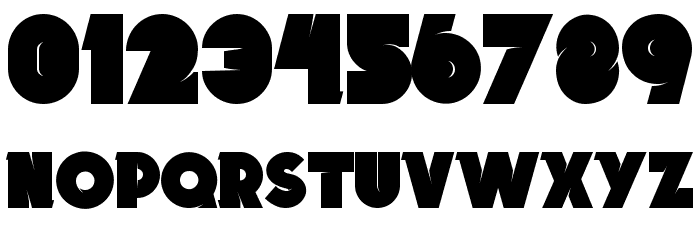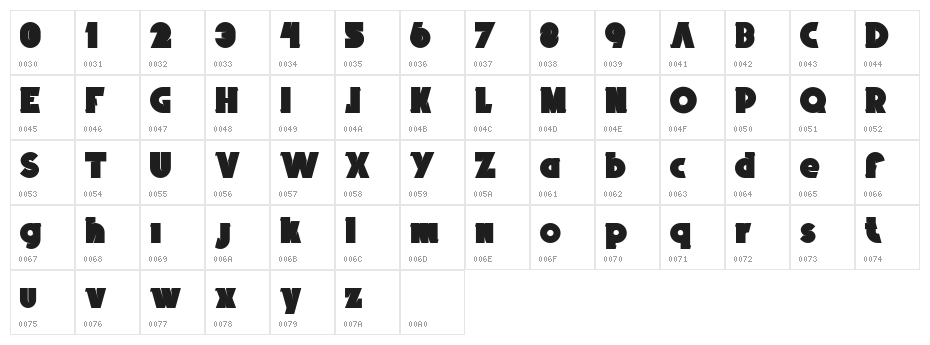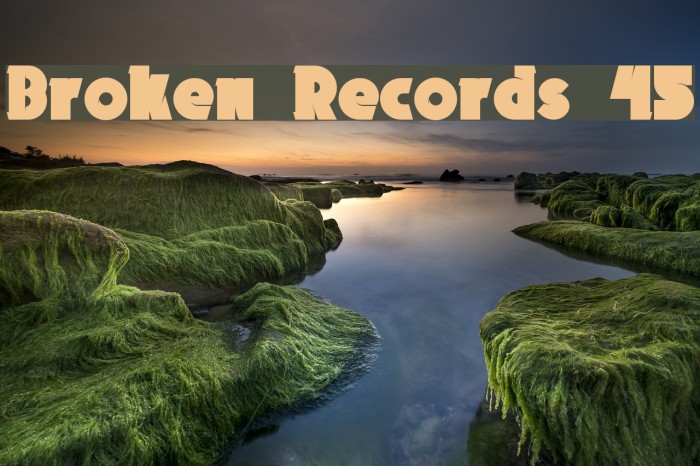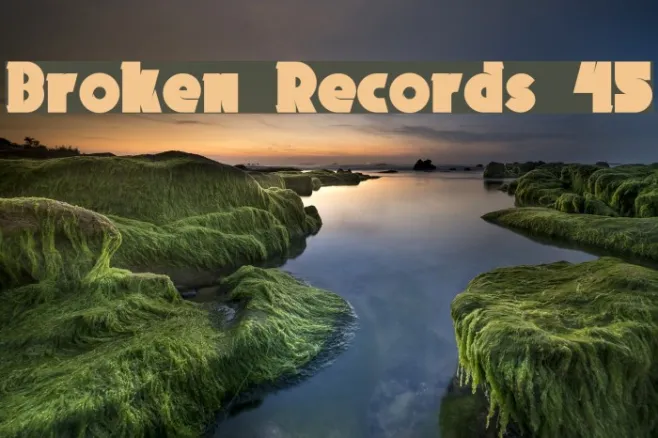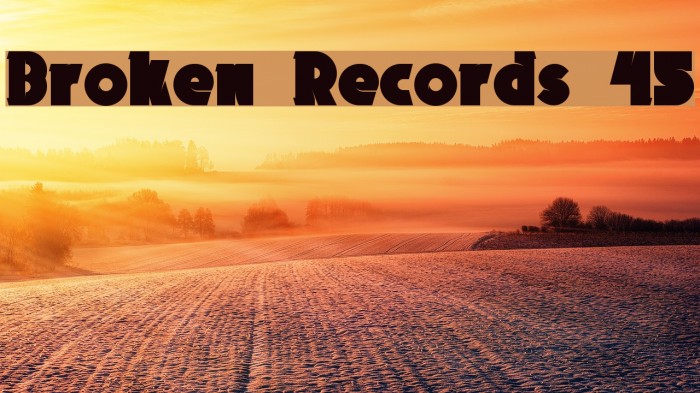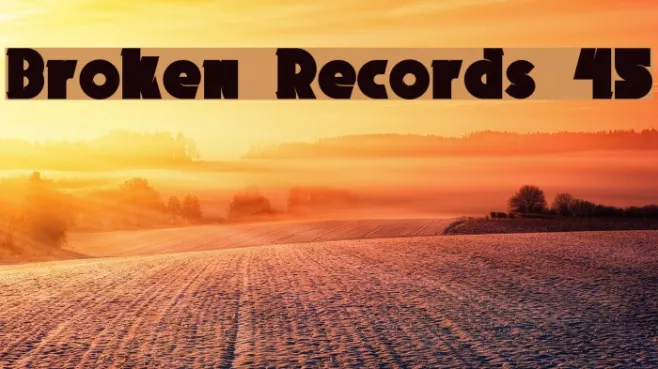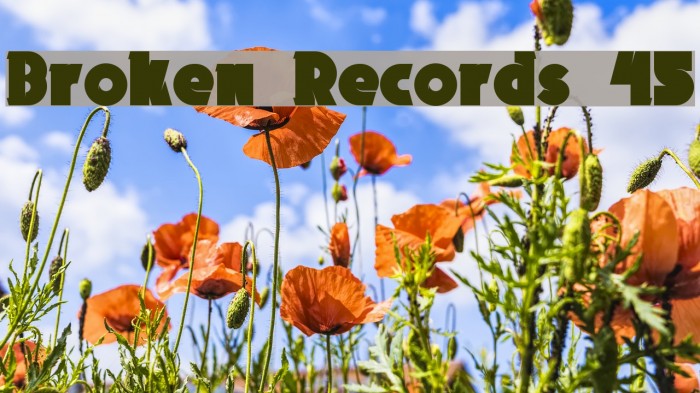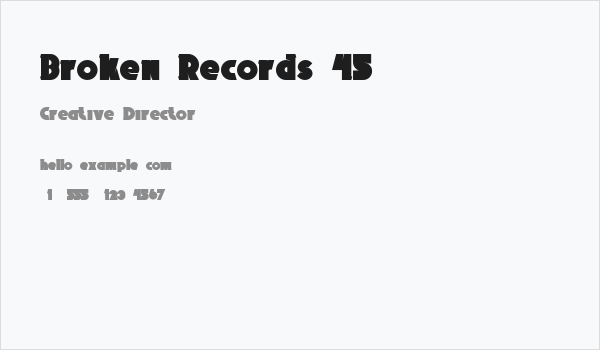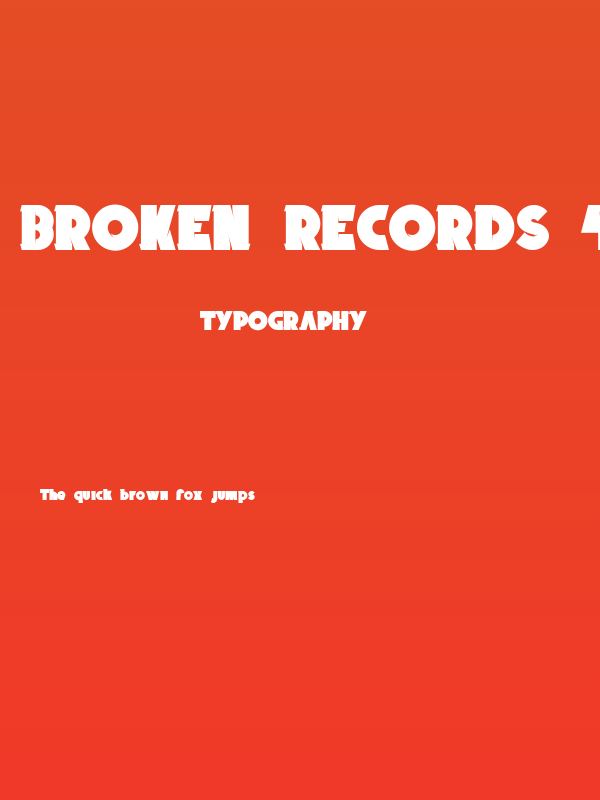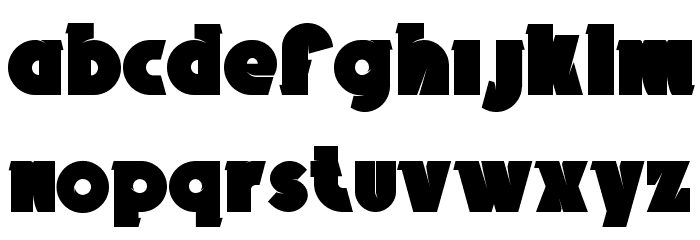
Broken Records 45 Font
Broken Records 45 Description
This bold and striking font features a unique, geometric design with sharp angles and thick strokes. The characters are heavily stylized, with a strong emphasis on symmetry and boldness, making it stand out in any design. The uppercase and lowercase letters maintain a consistent weight, creating a cohesive look across the alphabet. The numbers are equally bold, with a distinctive style that complements the letters. The special characters are designed to match the overall aesthetic, ensuring a seamless integration into any project. This font's bold and dramatic appearance makes it ideal for attention-grabbing designs.
| Proposed Projects | Ideal for posters, headlines, logos, and any project requiring a bold, eye-catching typeface. |